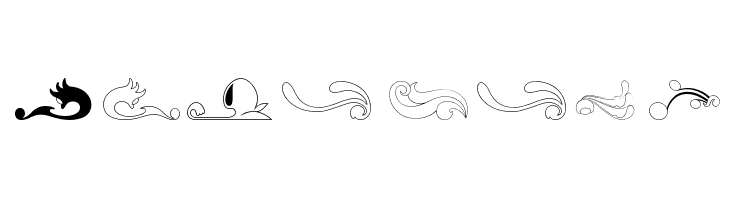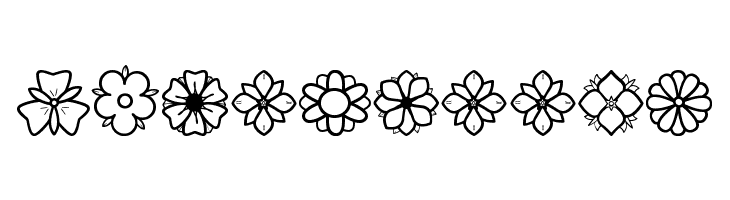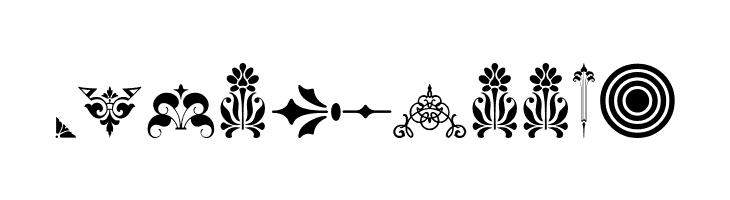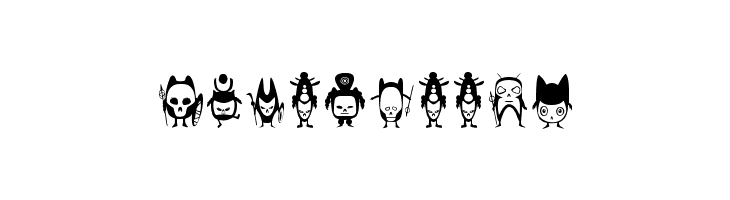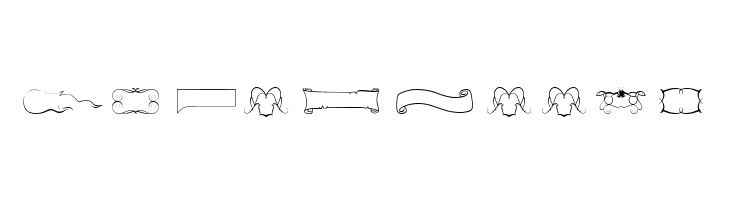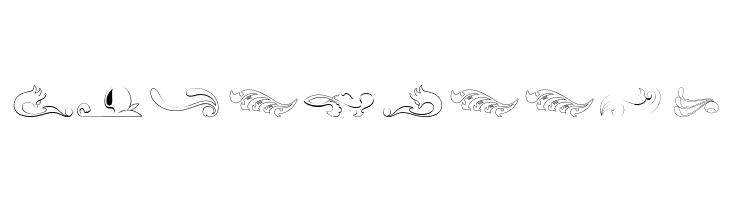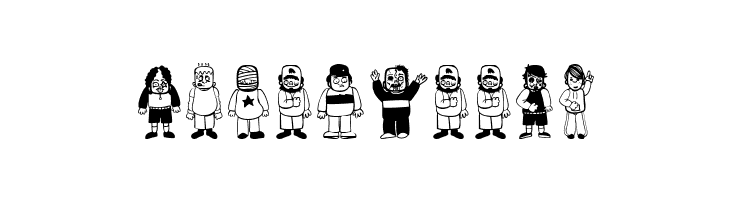
A decorative dingbat font of whimsical warrior and tribal characters.
Ornamental dingbat font with decorative frames and flourishes.
Ornamental symbol font with geometric and decorative motifs.
Ornate decorative flourishes with varying weights and intricate details.
Cartoonish dingbat font with illustrated characters and objects.
Hand-drawn pictogram font with baby and family themes.
A playful, handwritten font with heart-shaped accents and a whimsical style.
Ornate botanical dingbat font with whimsical floral illustrations.